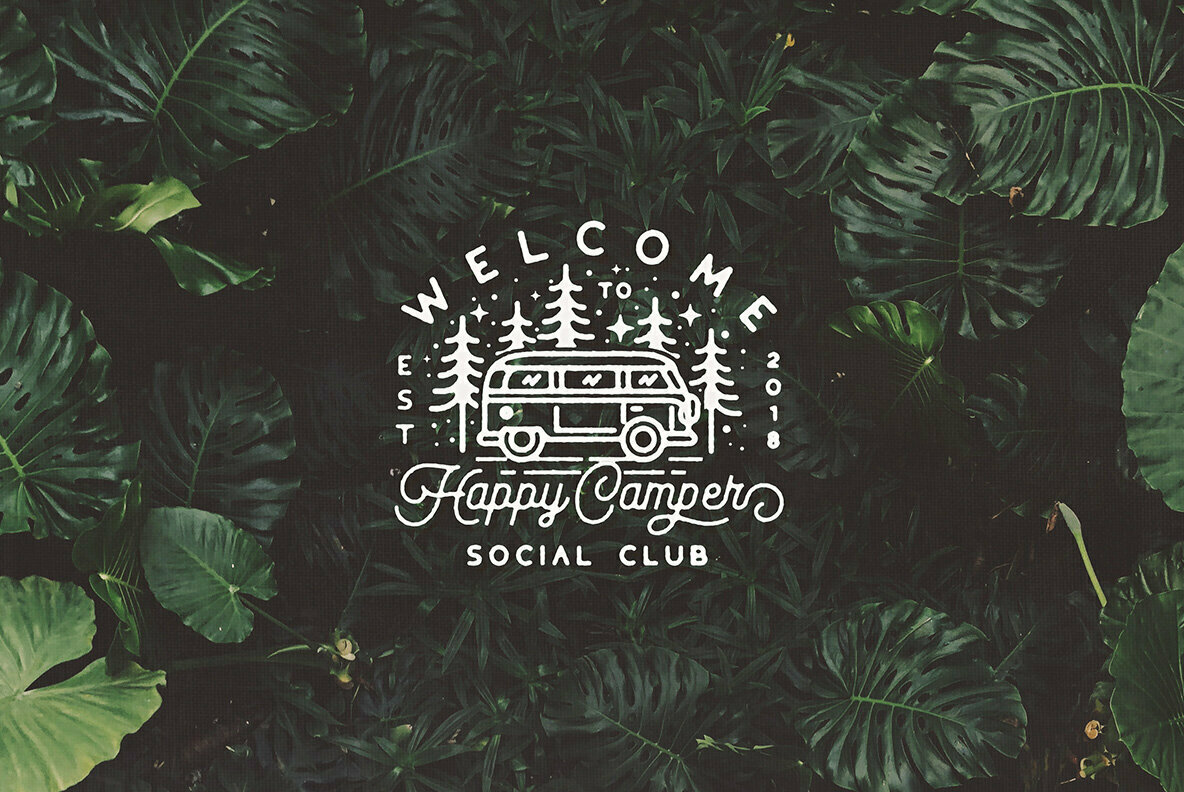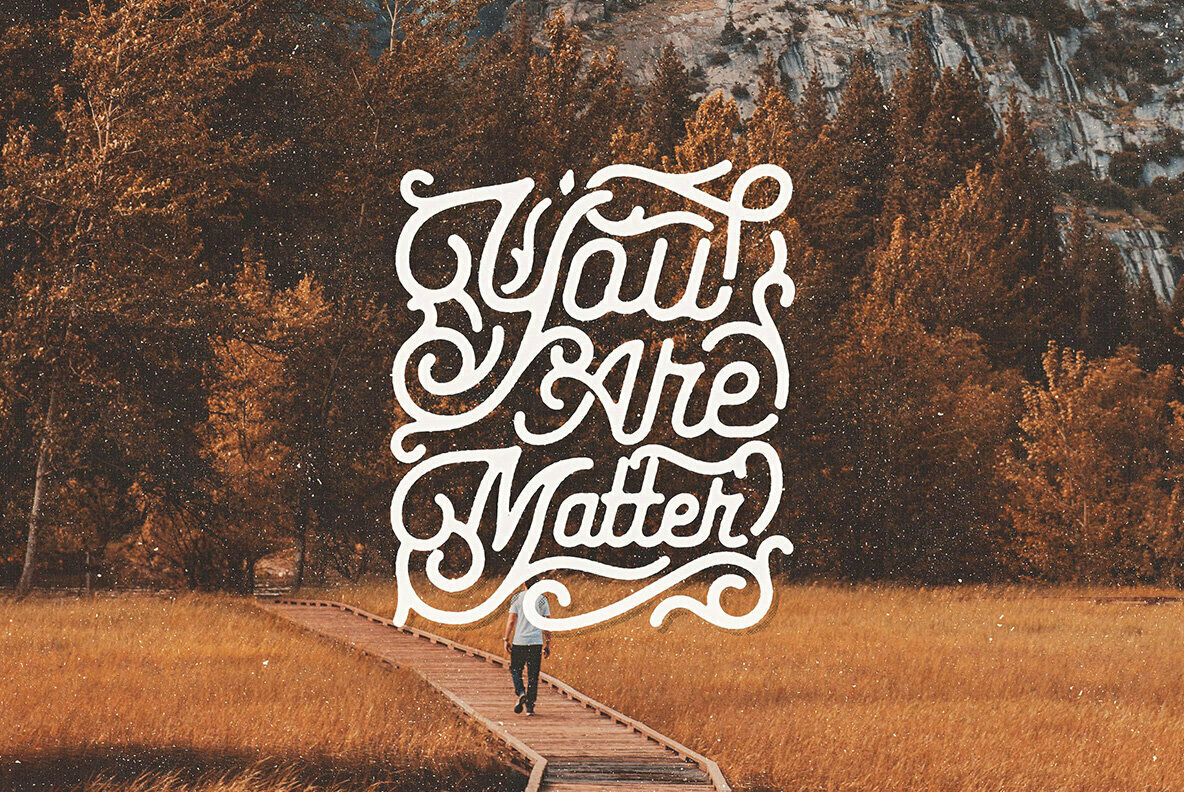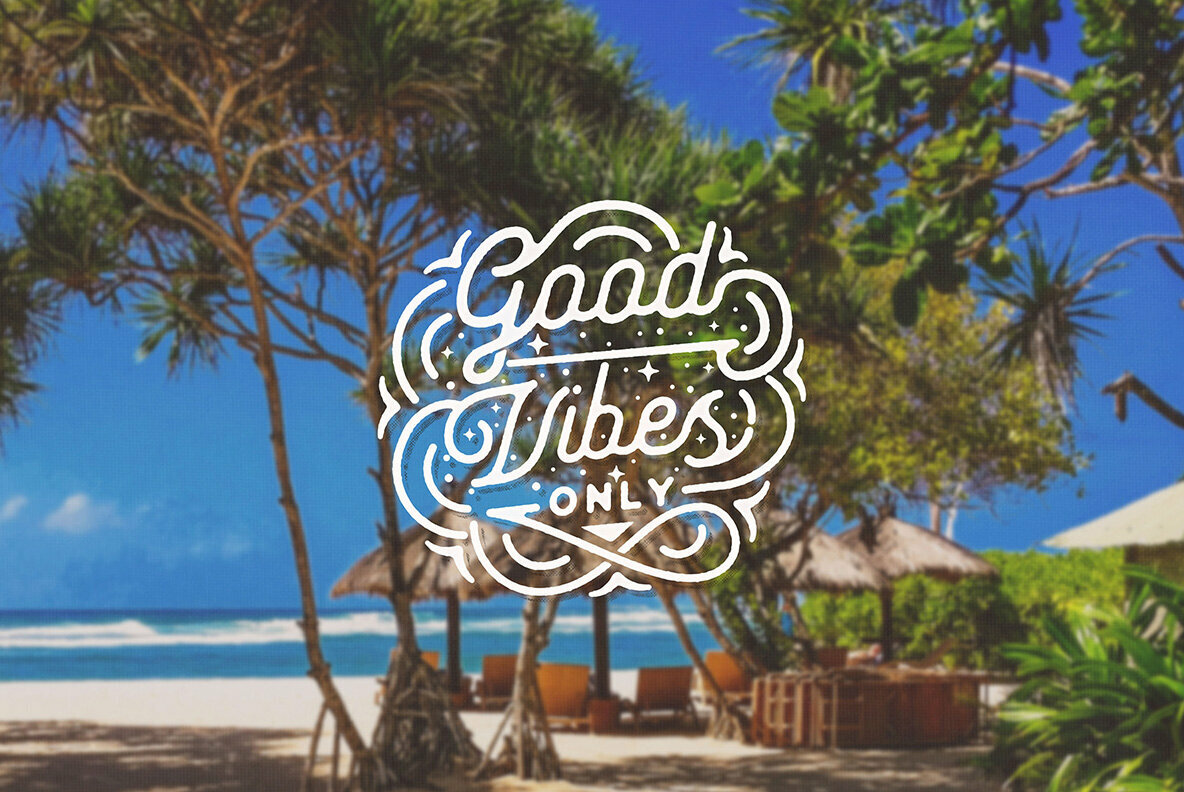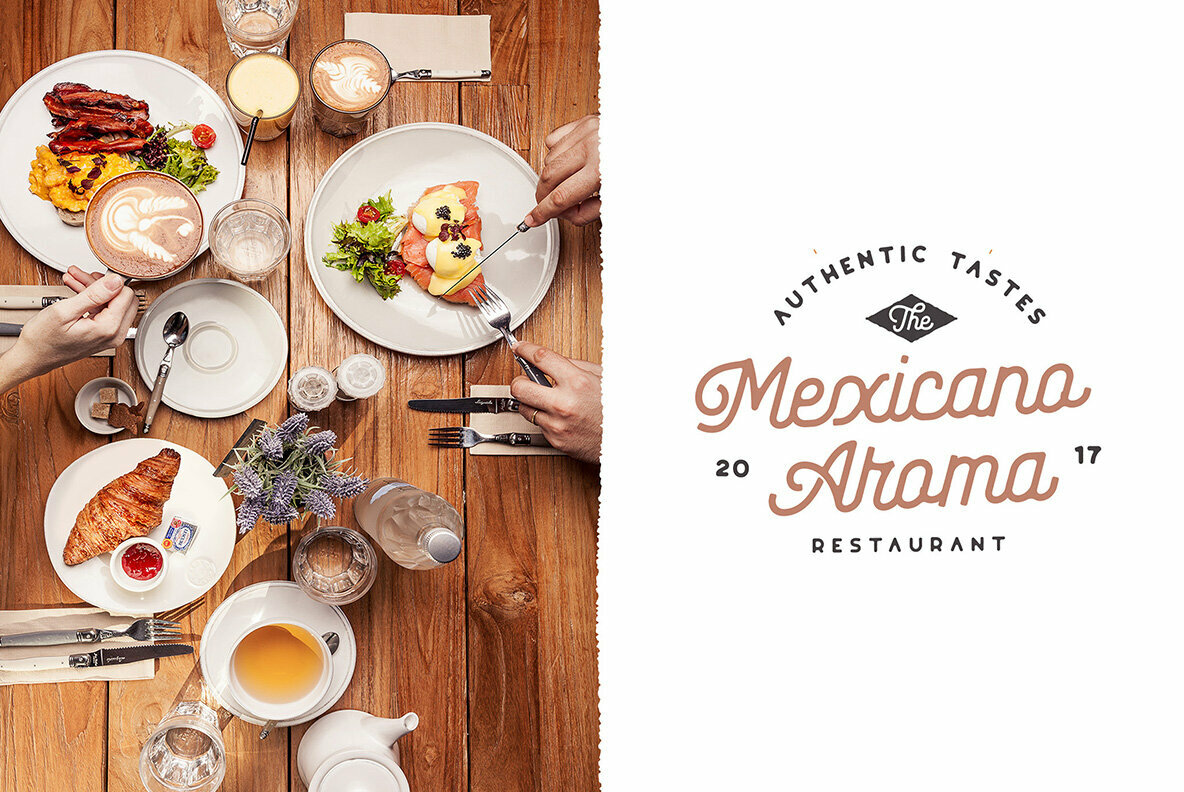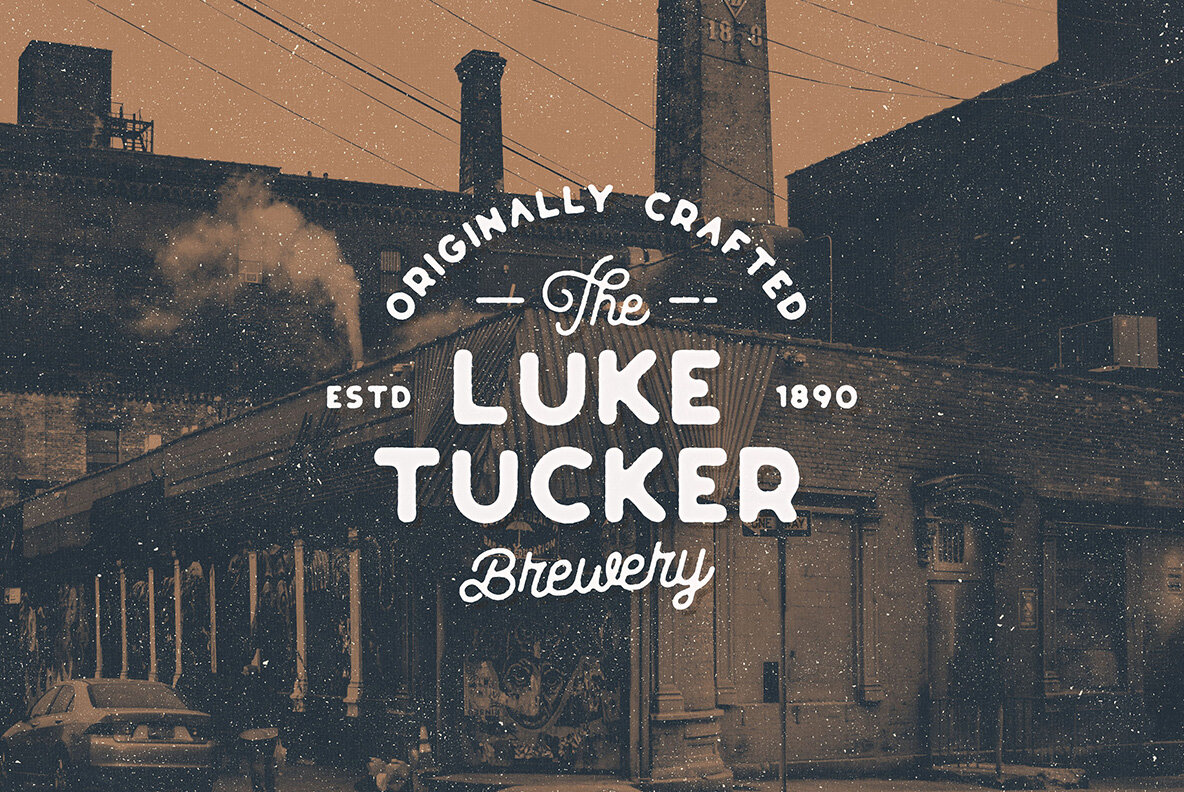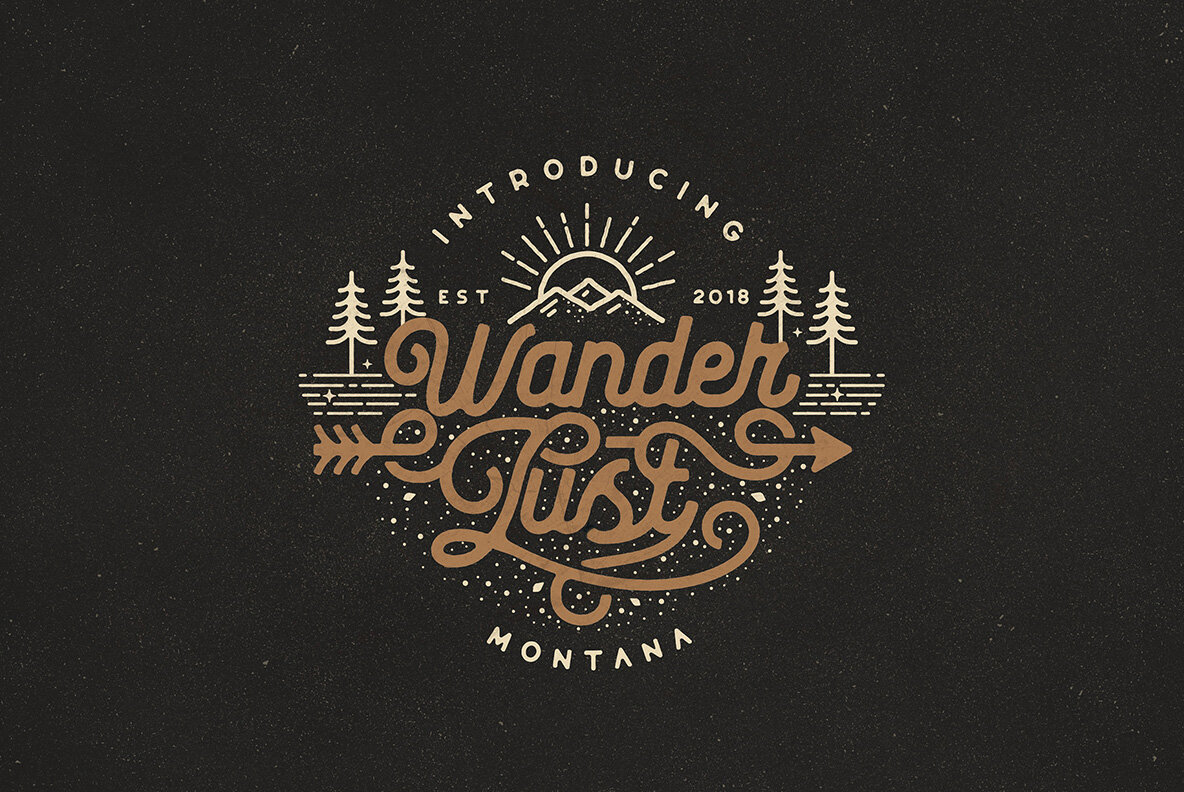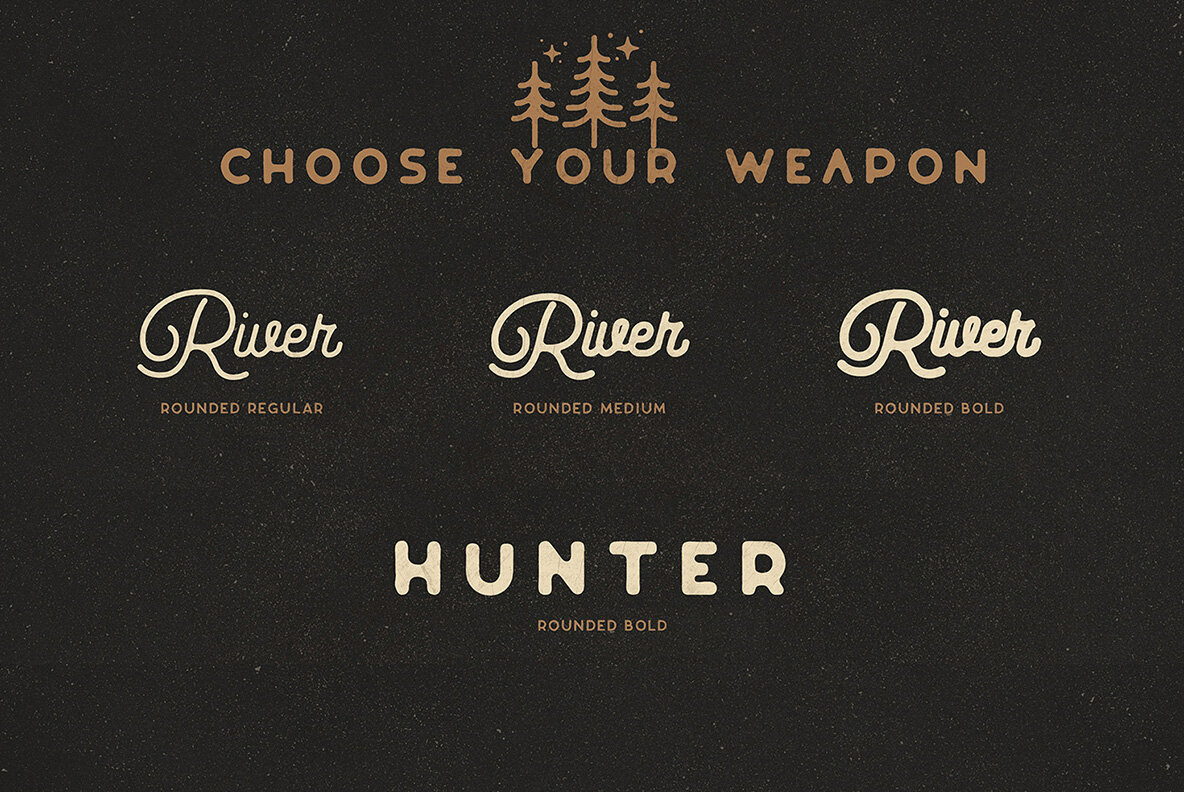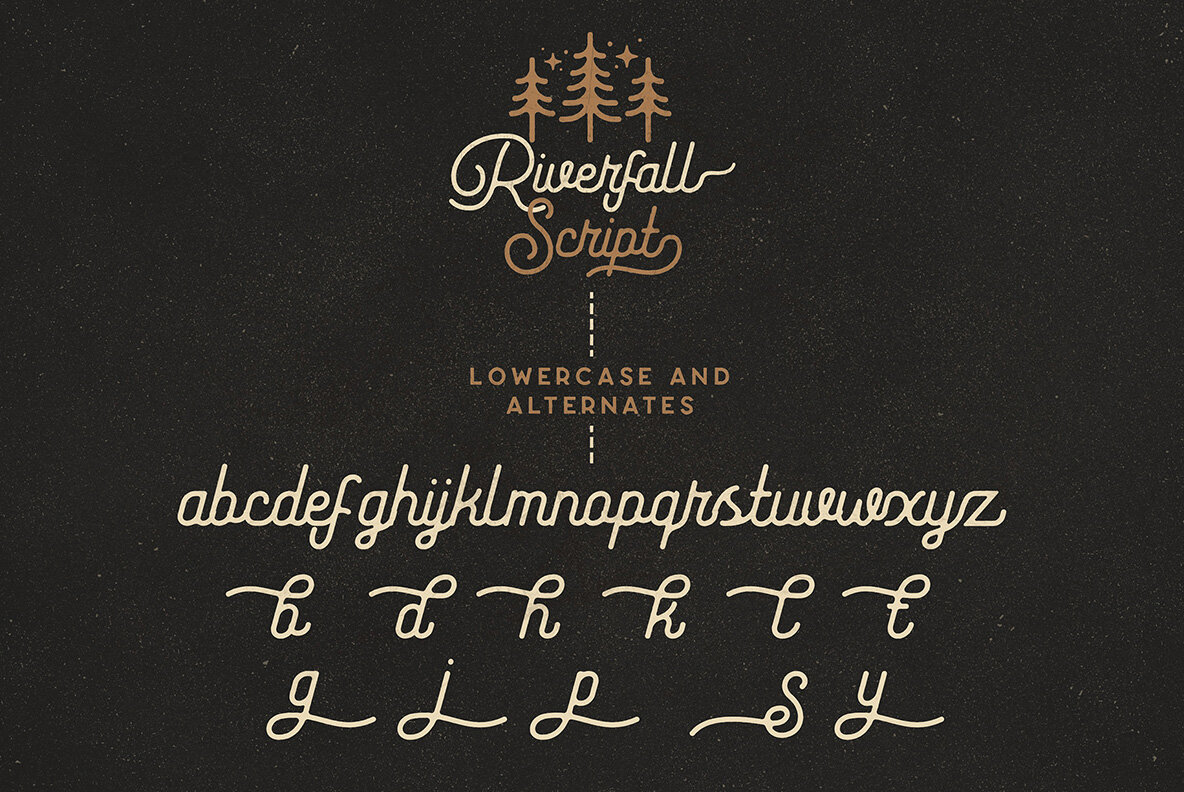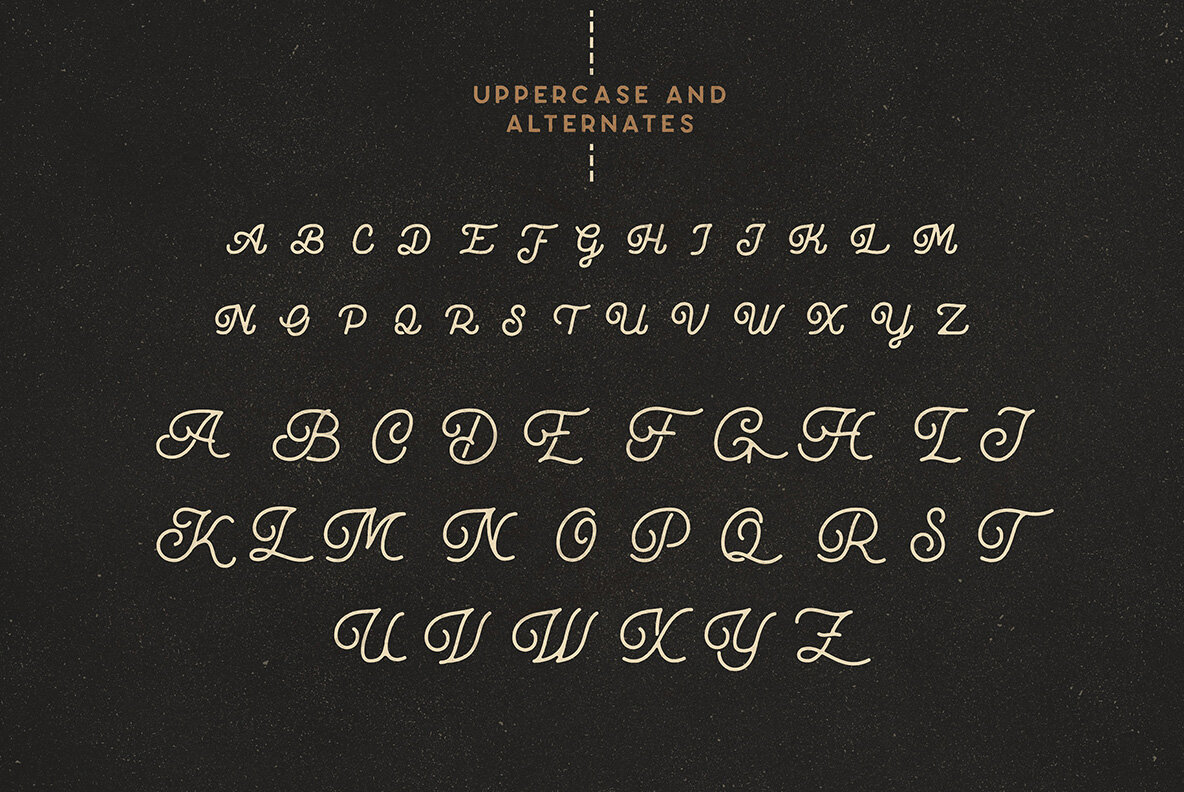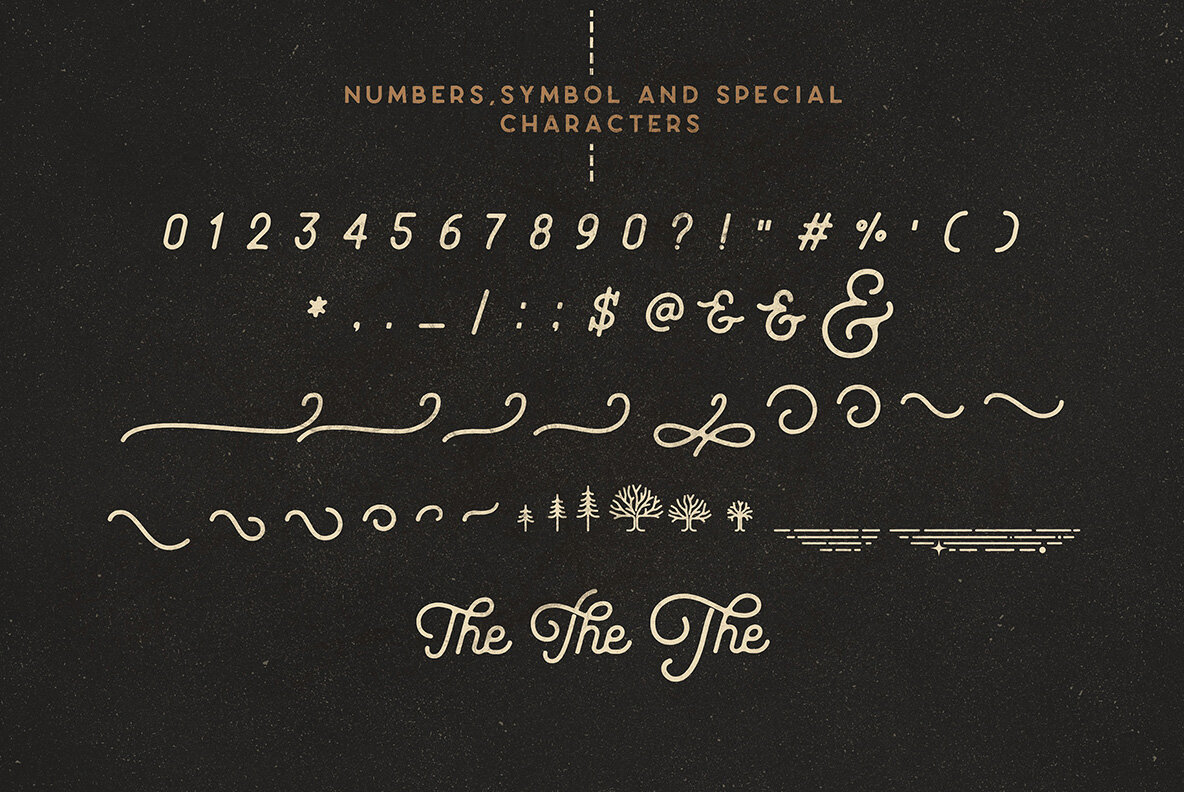
Riverfall Rounded Font
The Riverfall Rounded offers a harmonious blend of vintage charm with a modern twist, designed by Kurt Harahap. This font set embodies the nostalgia of retro design through a combination of script and sans serif styles. Crafted meticulously, it provides an elegant solution for diverse creative projects, ranging from branding to digital lettering arts. The dual nature of script and sans serif makes it versatile and appealing for logotypes, apparel, posters, signs, and more. Its vintage allure does not compromise contemporary needs, making it an ideal choice for those embracing retro aesthetics in modern designs.Riverfall Rounded: Vintage Soft Script and Sans Serif